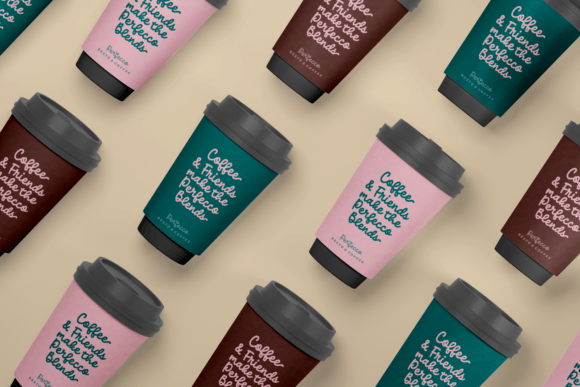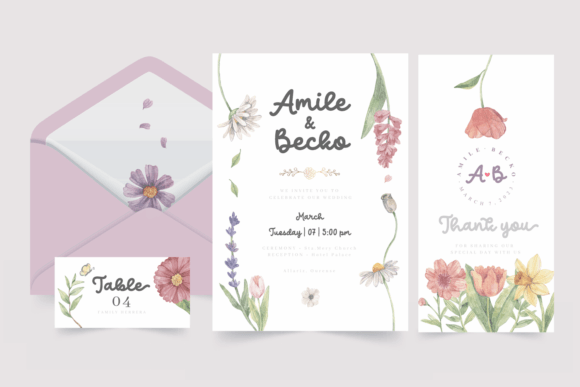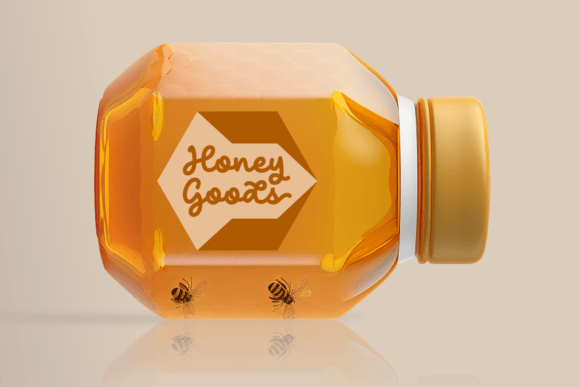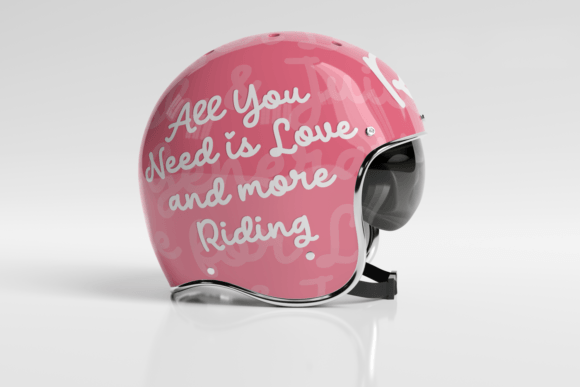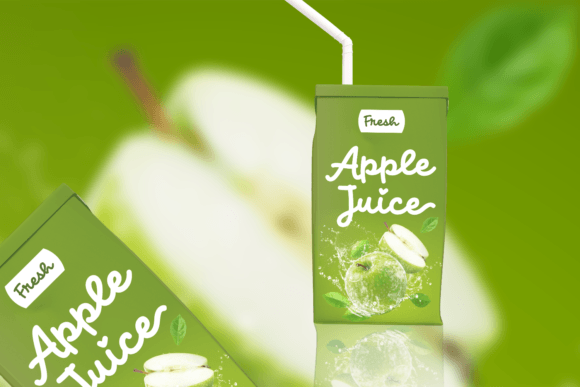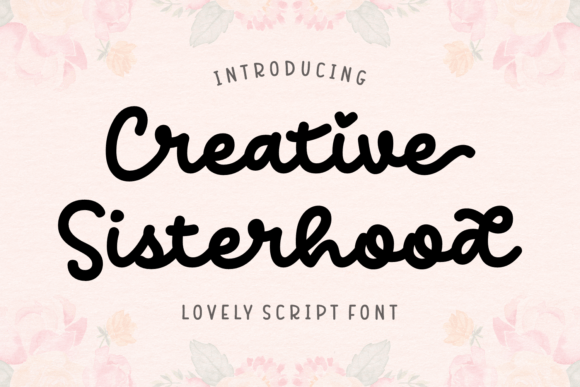
Introducing Creative Sisterhood Font: The Ultimate Handwritten Script for Creative Projects
Are you a designer, crafter, or DIY enthusiast looking for a font that can add a personal touch to your creative projects? Look no further than the Creative Sisterhood Font, a cute and quirky handwritten script that is sure to turn your ideas into works of art. In this article, we’ll take a closer look at the features and benefits of this amazing font, and explore how it can elevate your creative projects to the next level.
The Perfect Font for Creative Projects
Creative Sisterhood Font is a beautifully designed handwritten script that exudes a friendly and approachable feel. Its unique and quirky style makes it perfect for a wide range of creative projects, from Instagram posts and DIY crafts to handmade cards and invitations. Whether you’re a professional designer or a crafty hobbyist, this font is sure to inspire your creativity and add a personal touch to your work.
Key Features of Creative Sisterhood Font
So what makes Creative Sisterhood Font so special? Here are just a few of its key features:
- Cute and Quirky Design: Creative Sisterhood Font has a playful and whimsical design that is sure to add a touch of personality to your creative projects.
- Handwritten Script: This font is a genuine handwritten script, with each letter and glyph carefully crafted to create a unique and authentic look.
So why should designers and crafters choose Creative Sisterhood Font for their projects? Here are just a few benefits:
- Add a Personal Touch: With Creative Sisterhood Font, you can add a personal touch to your creative projects and make them stand out from the crowd.
- Increase Creativity: This font is designed to inspire creativity and spark new ideas. Whether you’re working on a DIY project or a professional design, Creative Sisterhood Font is sure to help you think outside the box.
- Versatility: This font is versatile and can be used on a wide range of creative projects, from digital designs to handmade crafts.
- DIY Projects: This font is perfect for DIY projects, such as handmade cards, invitations, and other crafts.
- Graphic Design: Creative Sisterhood Font can be used in graphic design projects, such as brochures, flyers, and other marketing materials.
In conclusion, Creative Sisterhood Font is a unique and versatile handwritten script that is perfect for designers, crafters, and DIY enthusiasts. With its cute and quirky design, PUA encoding, and easy-to-use features, this font is sure to inspire creativity and add a personal touch to your creative projects. Whether you’re working on a DIY project, a professional design, or simply looking for a font to use on Instagram, Creative Sisterhood Font is an excellent choice.